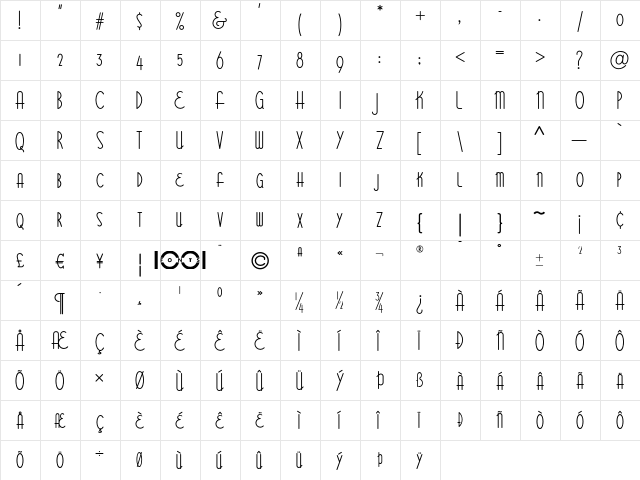
Bittersweet NF Regular Font Preview
Bittersweet NF Regular
Bittersweet NF Regular Font Details
Design Context for Bittersweet NF Typeface
Bittersweet NF is a composed and adaptable typeface that performs quietly and consistently across a wide range of design contexts.